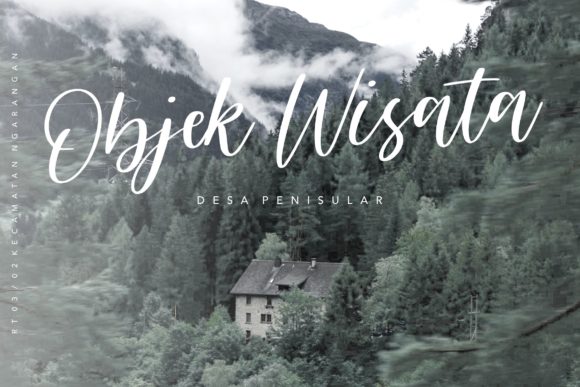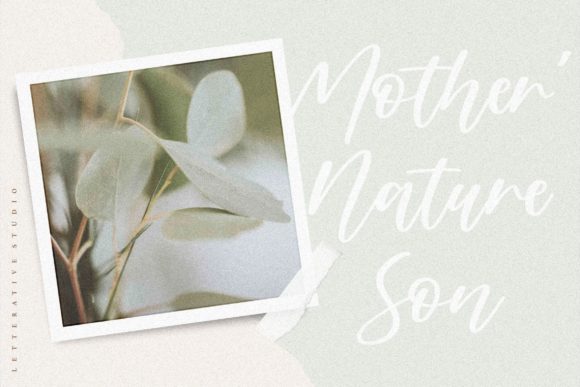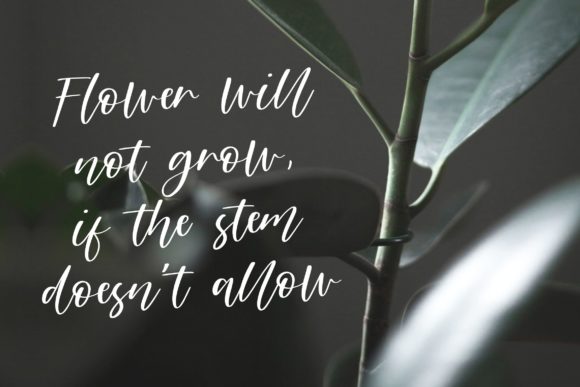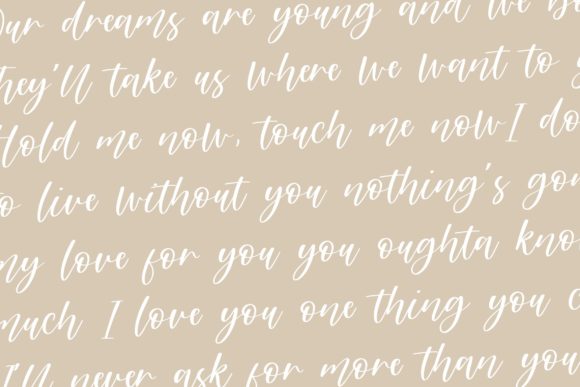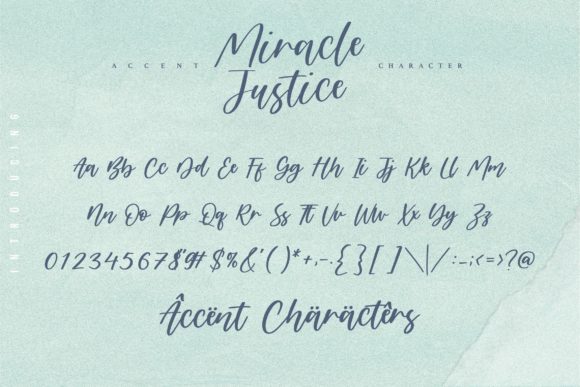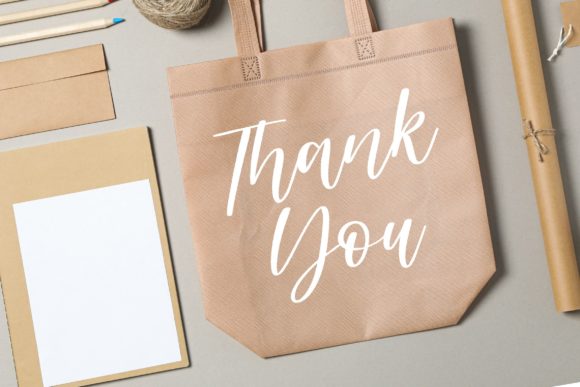
Introduction to Miracle Justice Font Font
Fonts play a crucial role in design, and the Miracle Justice Font font is a typeface that brings both character and versatility to any project. Whether you’re working on a branding project, a website, or a print design, the Miracle Justice Font font offers a unique style that can elevate your work.
Miracle Justice is an exquisite handwritten font, designed to become a true favorite.
It maintains its classy calligraphic influences while feeling contemporary and fresh Fall in love with it and bring your projects to the highest levels.
Key Features of Miracle Justice Font Font
Why Choose Miracle Justice Font Font?
The Miracle Justice Font font is more than just a typeface – it’s a design tool that helps you communicate your message with style and clarity. Its unique character set and versatile design make it suitable for a wide range of applications, from elegant invitations to bold headlines.
With its carefully crafted letterforms and balanced proportions, the Miracle Justice Font font ensures readability and visual appeal across all mediums.
What makes Miracle Justice Font font special?
The Miracle Justice Font font stands out with its unique design, exceptional readability, and versatility across various design applications.